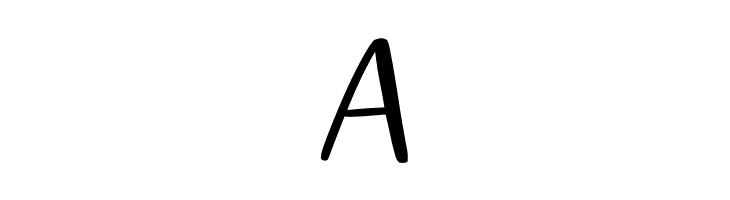
A sleek, semi-condensed, extra light italic font with a modern and elegant design.
A modern, semi-condensed italic font with clean lines and a dynamic style.
A modern, semi-condensed font with a clean and elegant design.
A sleek, modern semi-condensed light italic font with elegant proportions.
A modern, semi-condensed sans-serif font with uniform stroke width and balanced characters.
A modern, semi-condensed italic typeface with medium weight and clean lines.
A modern, semi-condensed sans-serif font with clean lines and balanced proportions.
A modern sans-serif font with semi-condensed proportions and uniform stroke widths.
A modern, semi-condensed, semi-bold italic font with a clean and dynamic style.
A modern, semi-condensed font with thin strokes and excellent readability.
A sleek, modern semi-condensed thin italic font with elegant strokes.
A modern, semi-bold sans-serif font with clean lines and balanced proportions.
A modern, semi-bold italic sans-serif font with medium contrast and normal spacing.
A clean, modern sans-serif font with a thin weight and geometric design.
A sleek, modern italic font with thin strokes and a dynamic style.
A bold, futuristic font with thick, geometric letters.
A bold, wide, and modern font with a geometric, futuristic style.
A clean, modern sans-serif font with consistent stroke width and excellent readability.
A bold, geometric sans-serif font with a modern, industrial style.
A clean, modern sans-serif font with a semi-bold weight and rounded edges.
A bold, modern sans-serif font with a clean and impactful style.
A bold, dynamic script font with a handwritten style.
A bold, handwritten-style font with dynamic and expressive strokes.
A bold, modern sans-serif font with a tall, narrow, and condensed style.
A playful handwritten font with smooth curves and a casual style.
A playful, handwritten font with smooth curves and dynamic strokes.
A modern, geometric sans-serif font with clean lines and balanced spacing.
A modern, thin-lined font with a clean and sophisticated design.
A modern sans-serif font with rounded edges and a clean, approachable style.
A modern, clean sans-serif font with uniform strokes and rounded edges.
A bold, geometric sans-serif typeface with strong, clean lines.